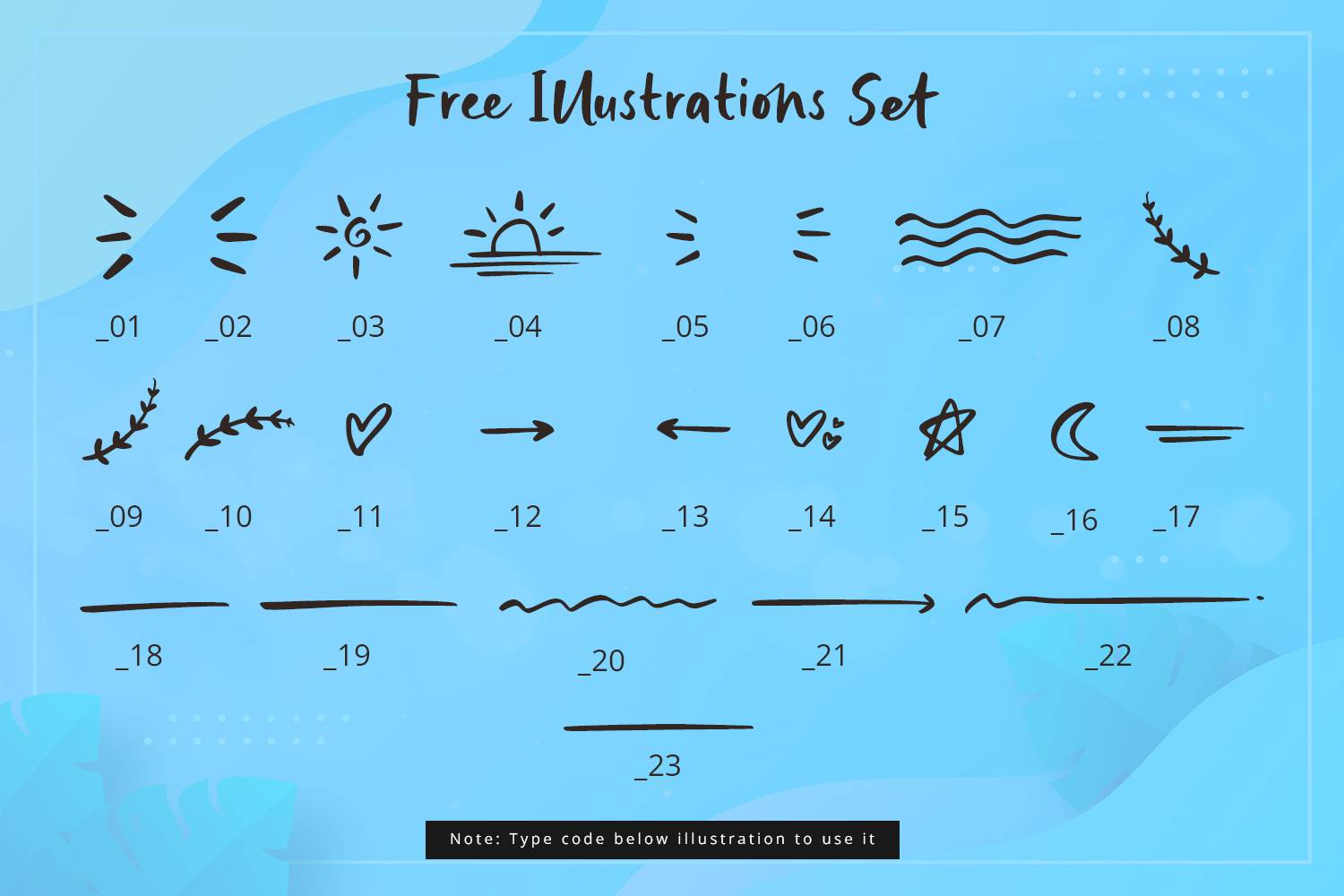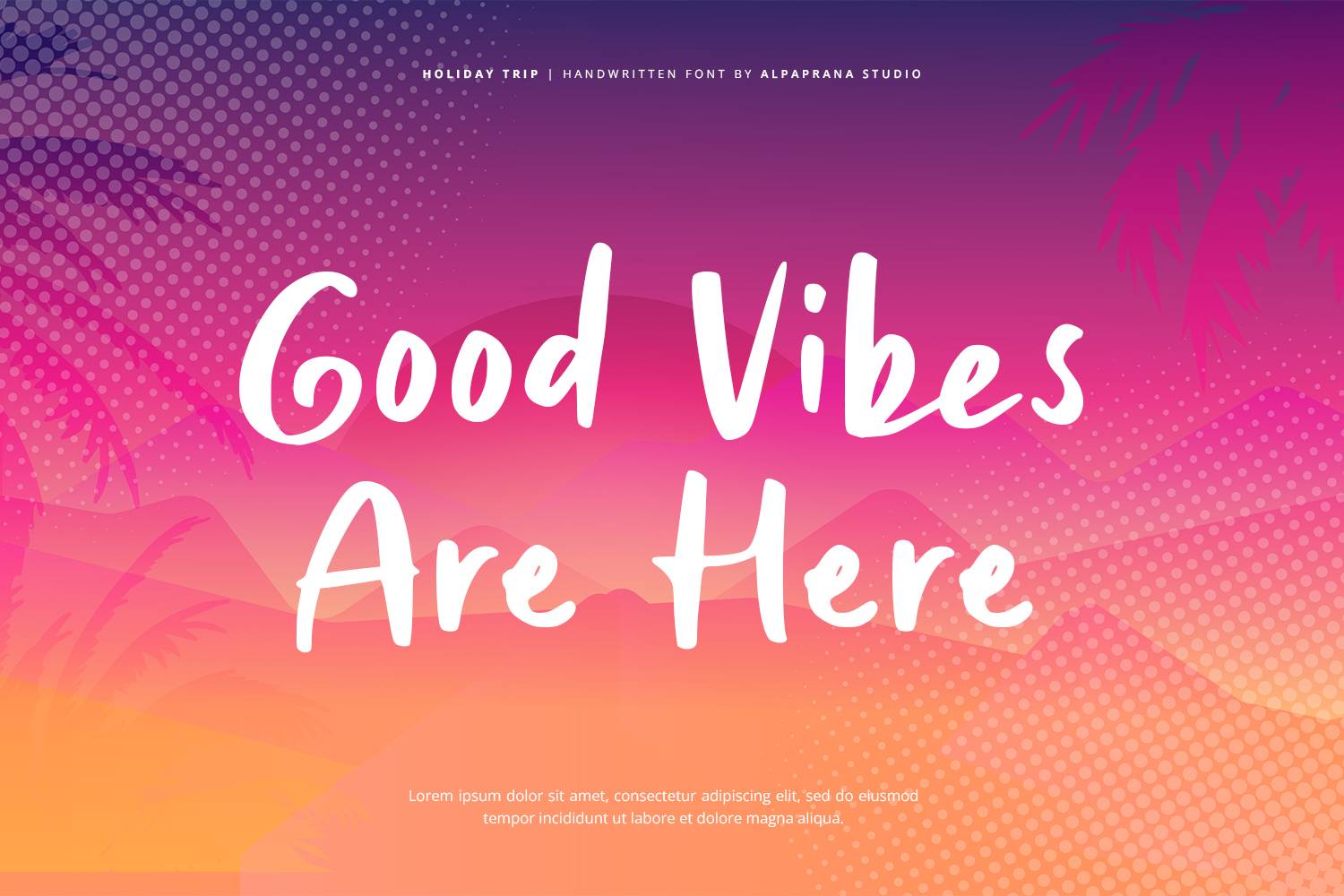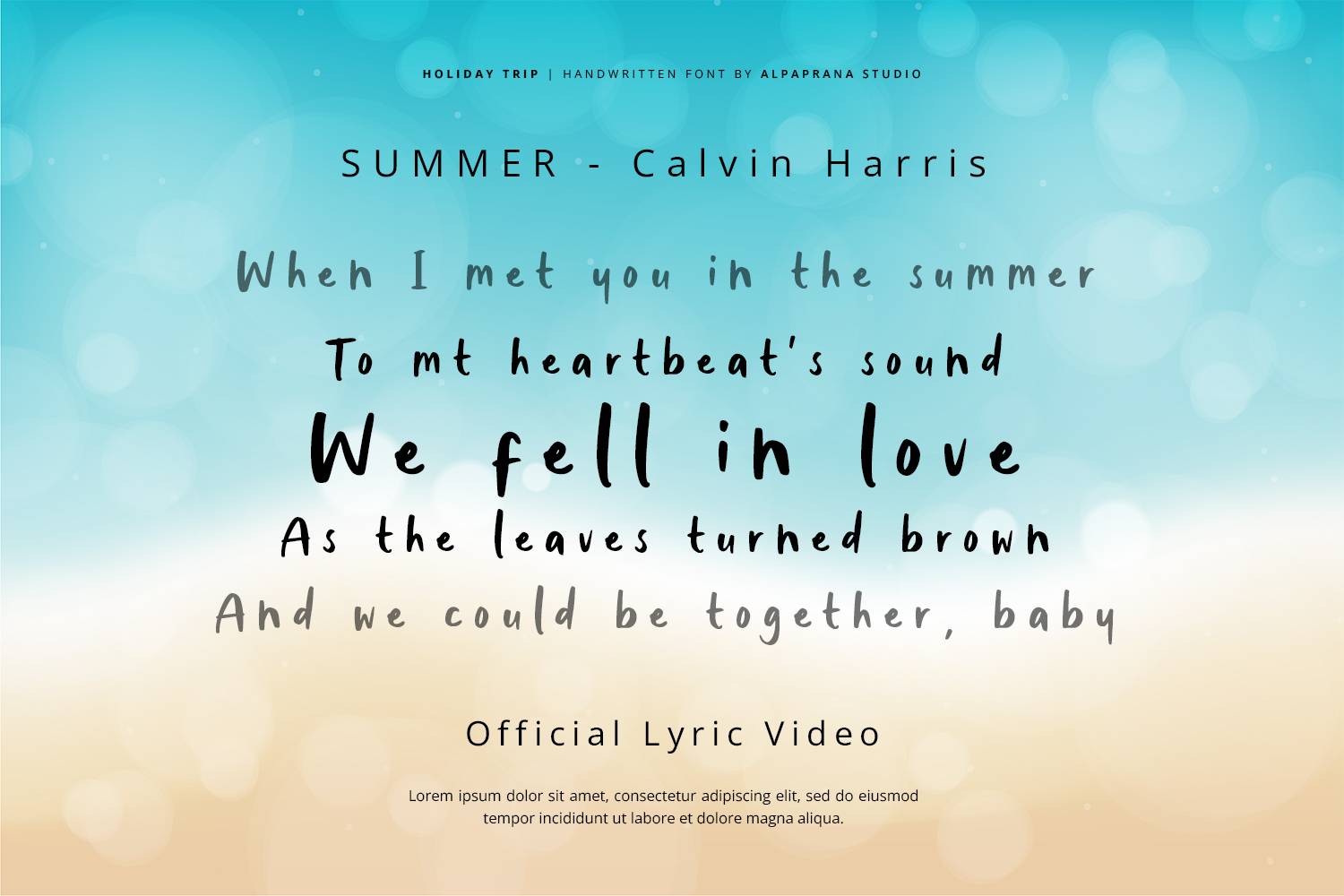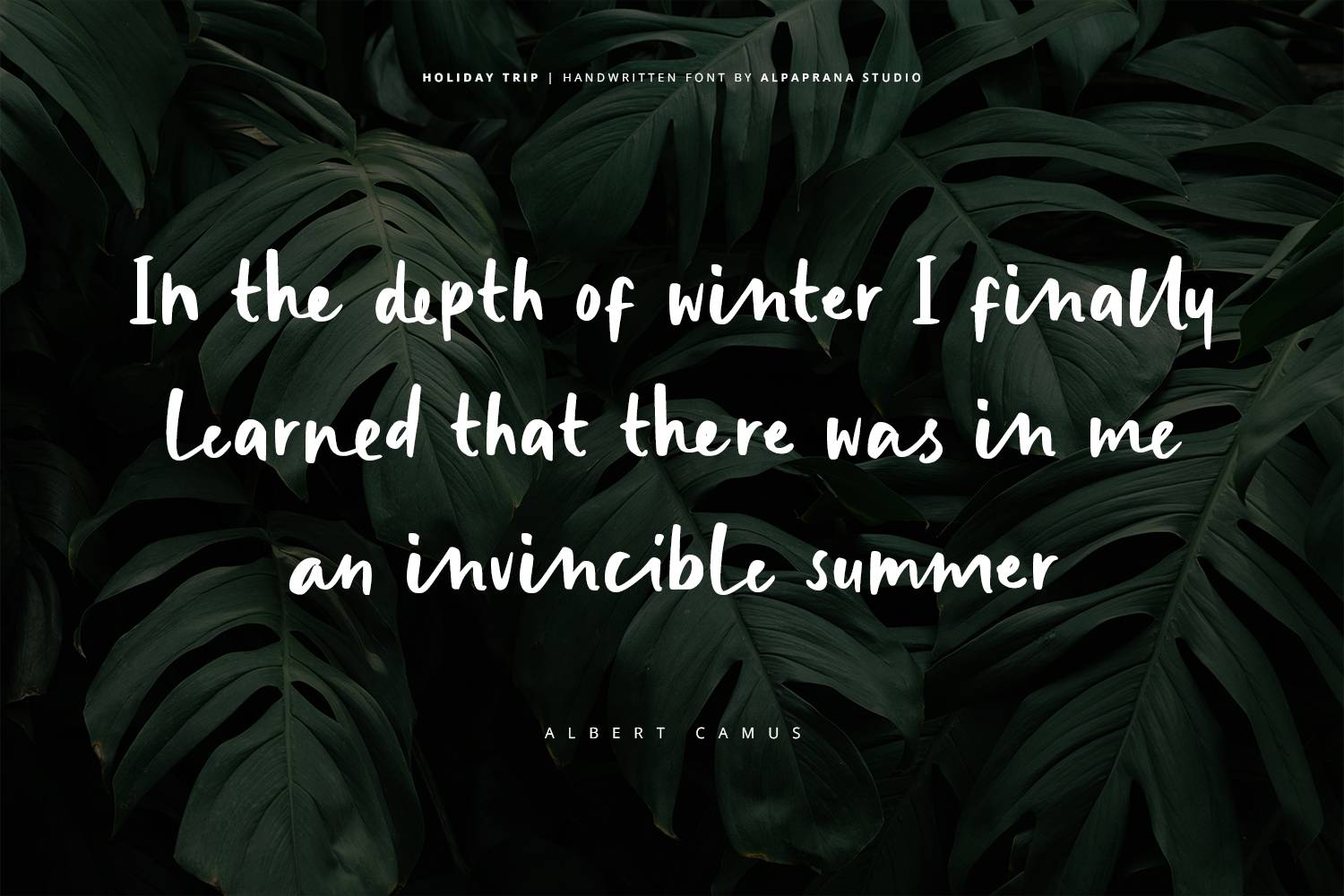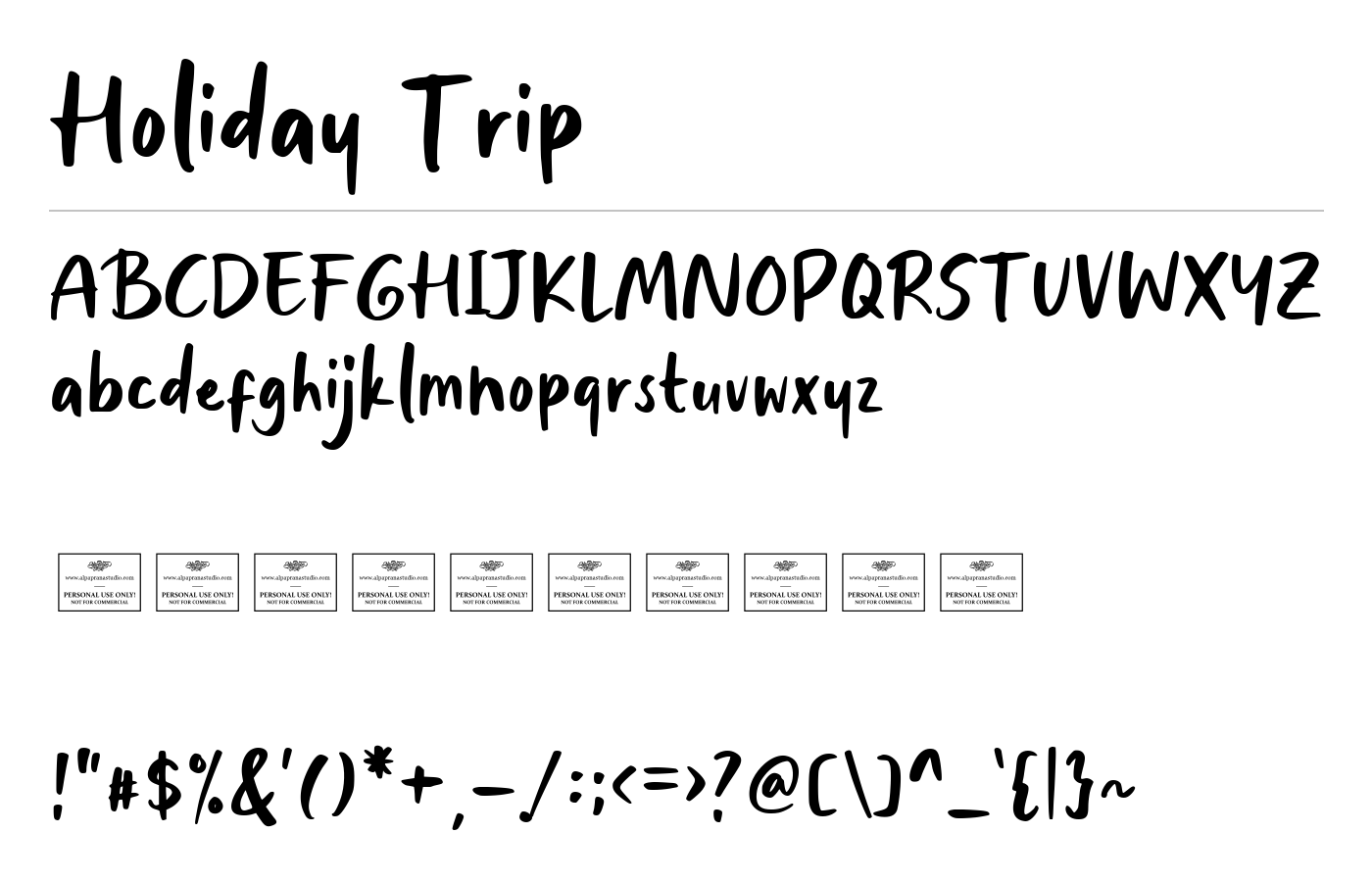
Holiday Trip is a playful, handwritten sans serif font with a casual, friendly vibe. Its moderate weight and lively, irregular strokes create an inviting and informal feel, making it ideal for greeting cards, travel blogs, and creative branding. This font works particularly well for projects that want to express warmth, approachability, and a personal touch.
Holiday Trip Font
About Holiday Trip Font